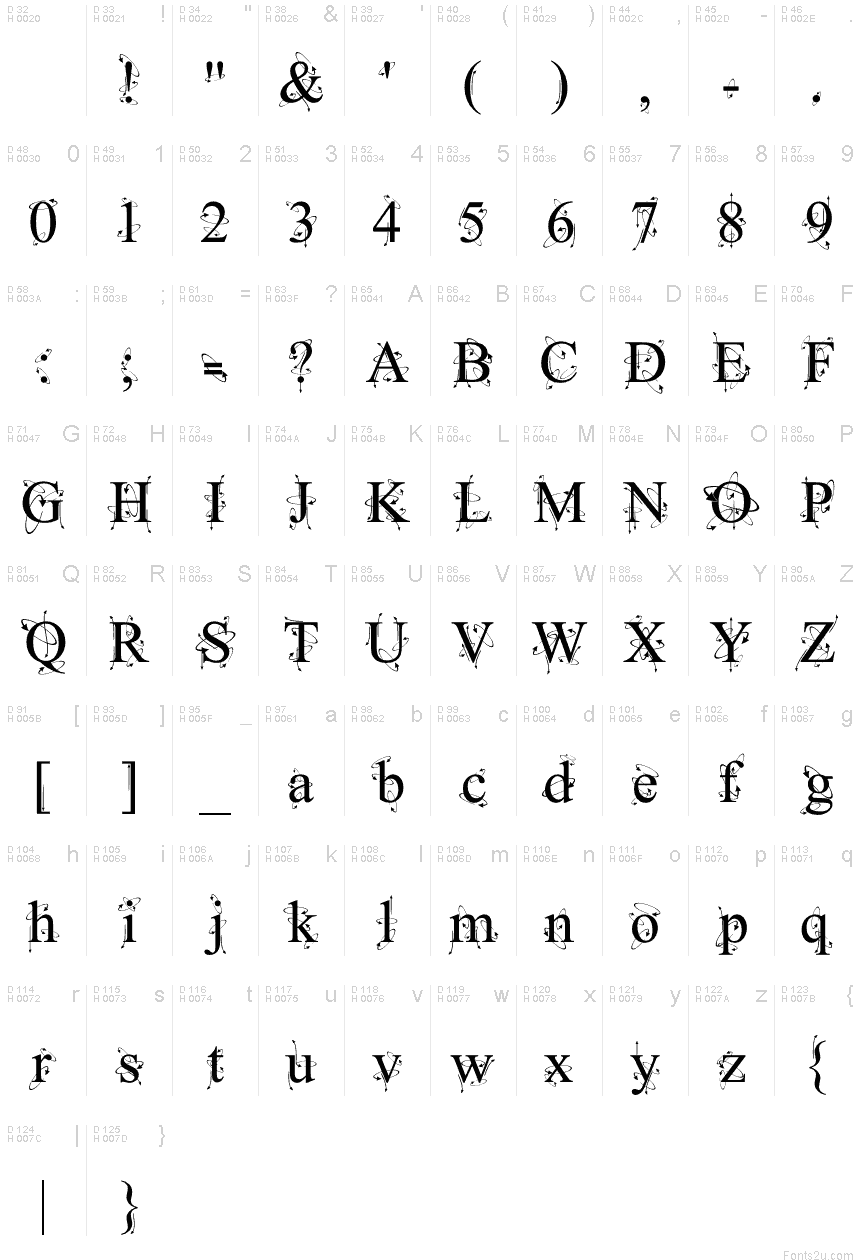
Kingthings Frontwards
Kingthings Frontwards by Kingthings is a free decorative display font that wraps stately serif letters in looping arrows. Its capitals and sharp stroke contrast give the alphabet a formal, engraved look. The arrows keep every line in motion.
It is especially suited to theatrical posters, where the circling marks can suggest crossed paths, reversals, or comic confusion, and it also fits book covers and event invitations. Those recurring arrows let the lettering merge with maps, diagrams, and route-based illustration instead of serving as a separate caption.